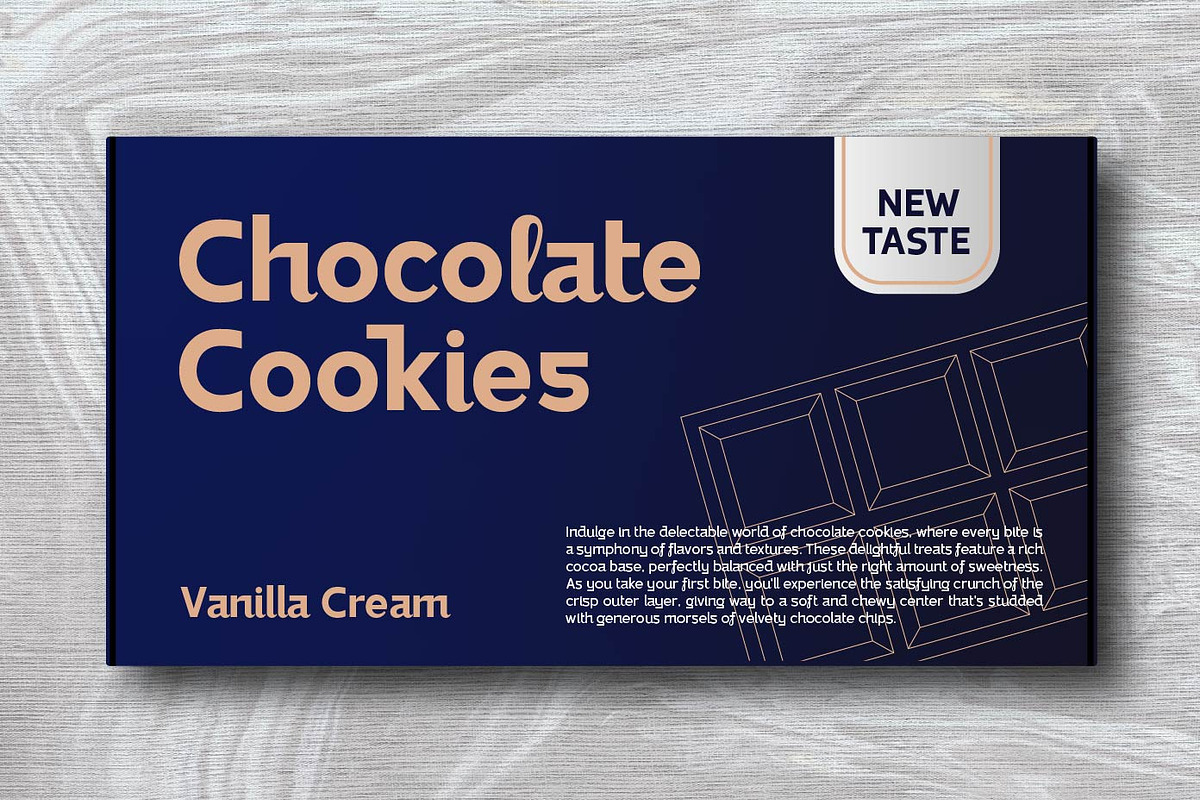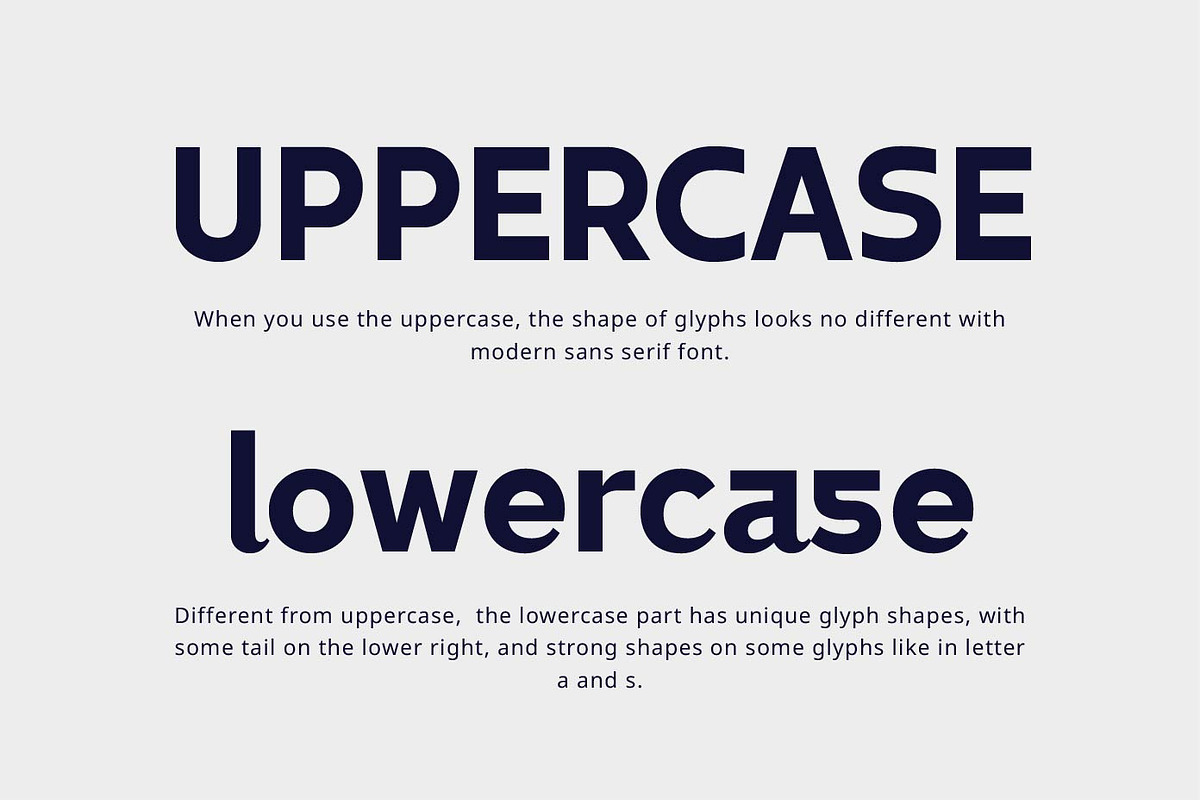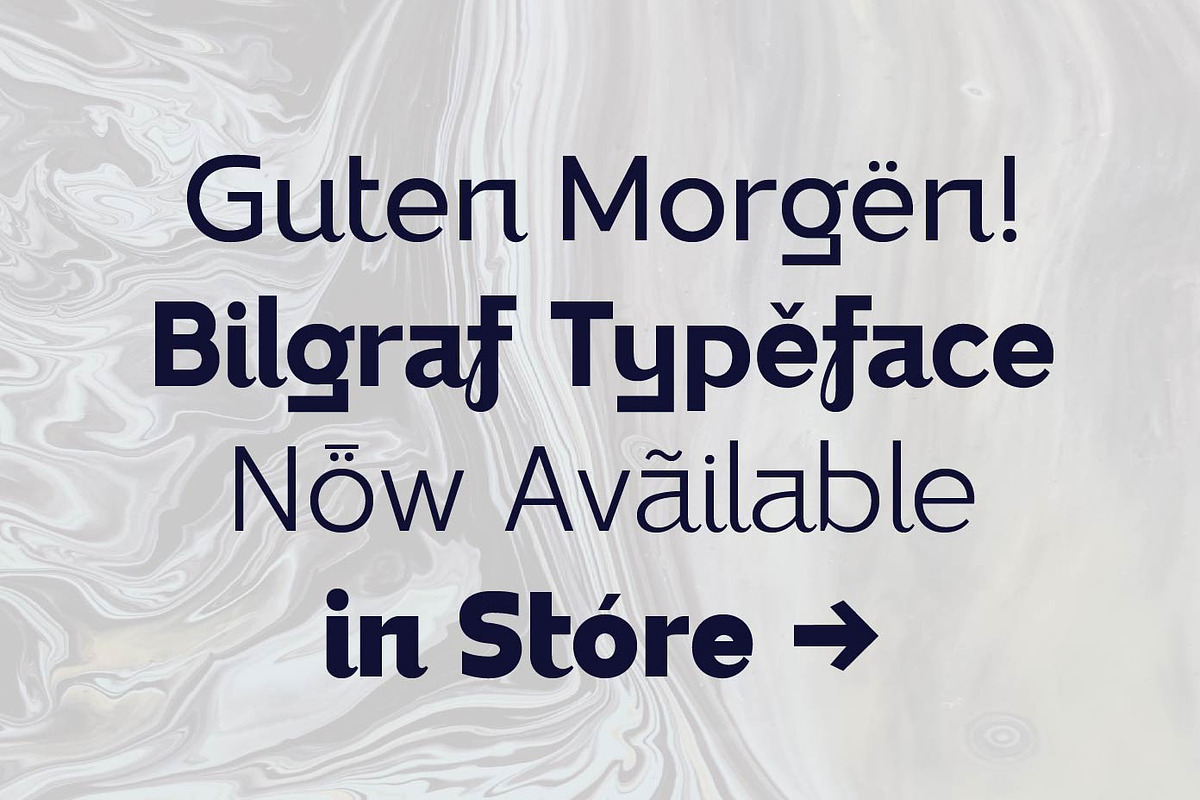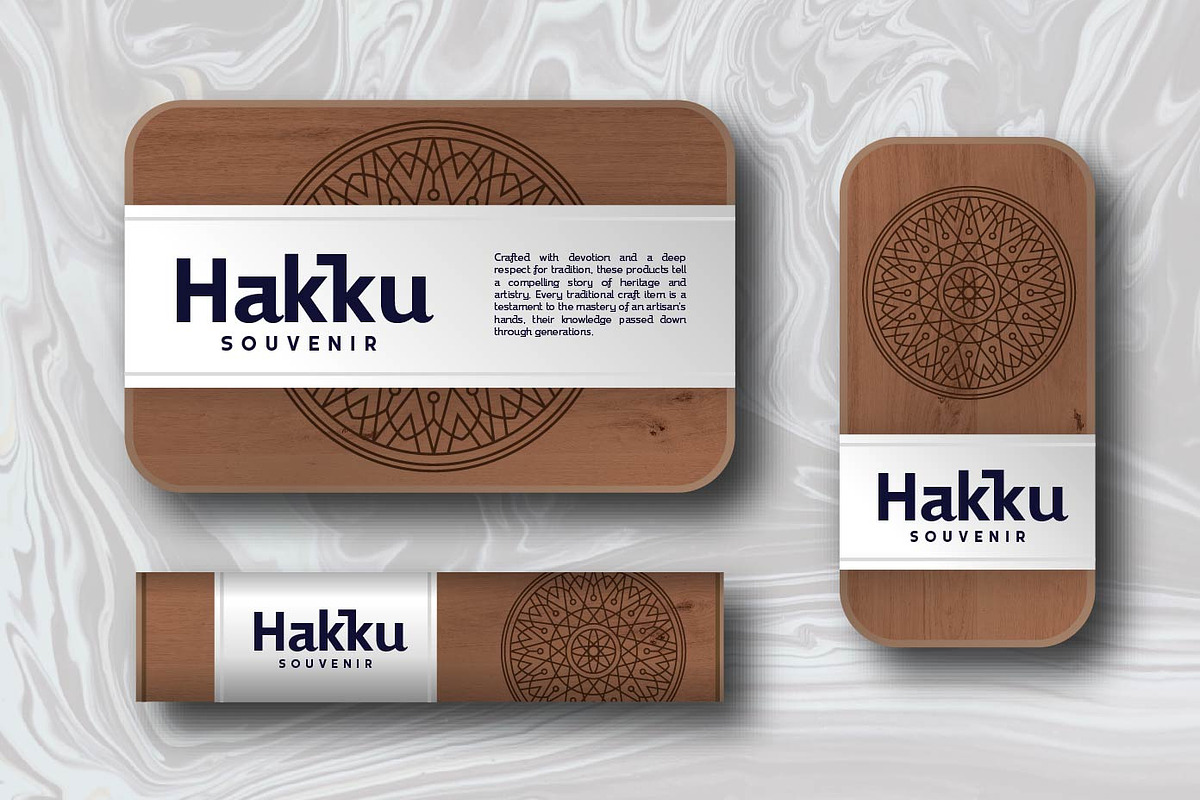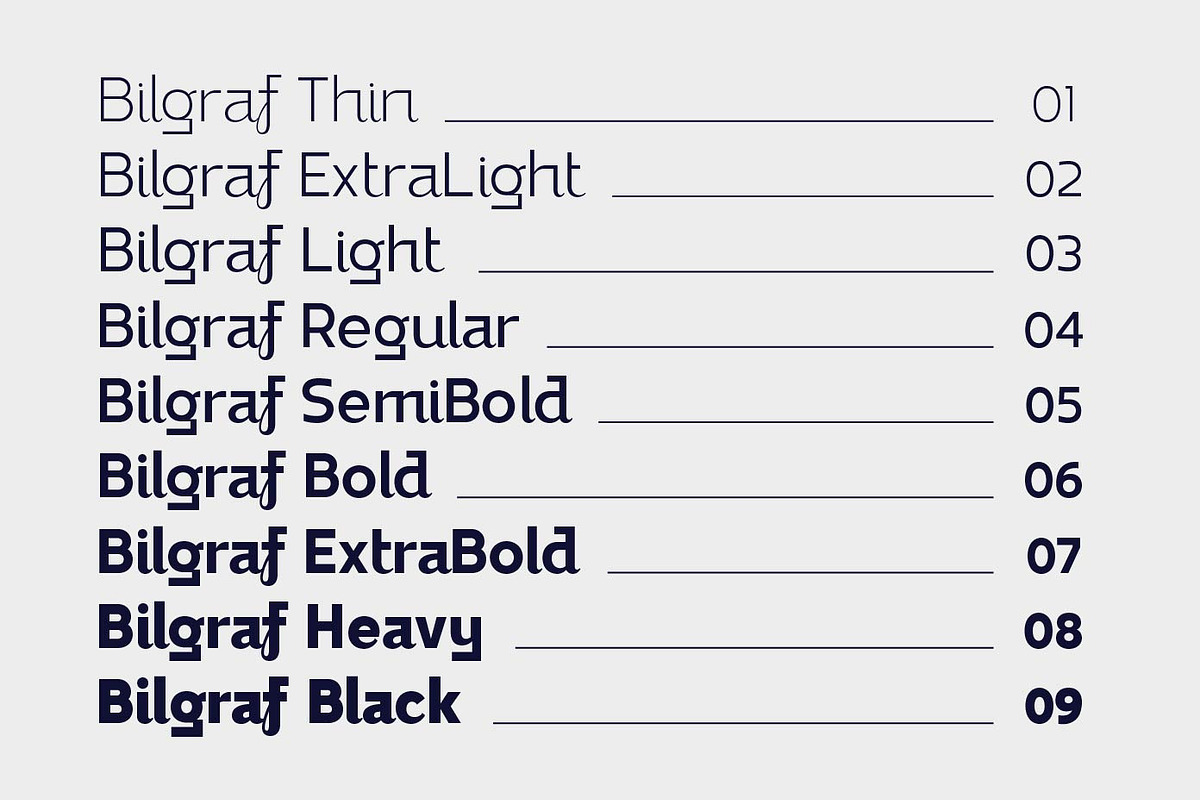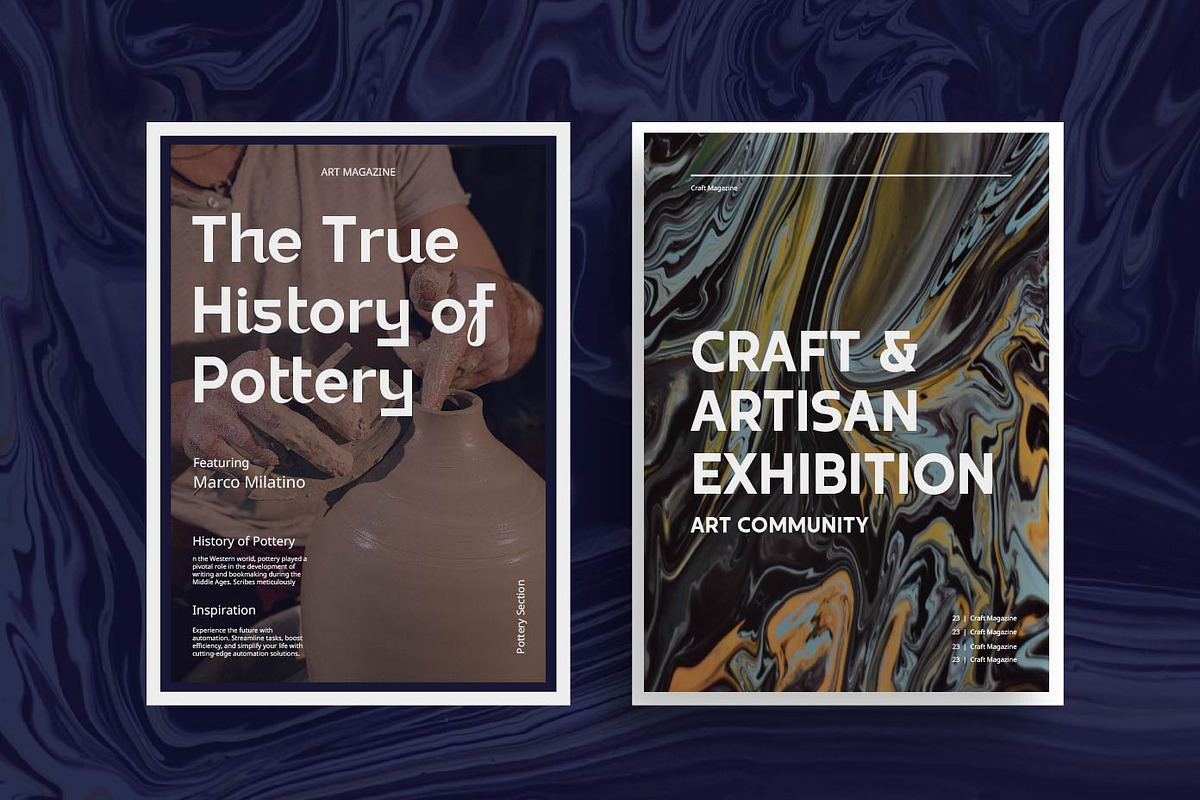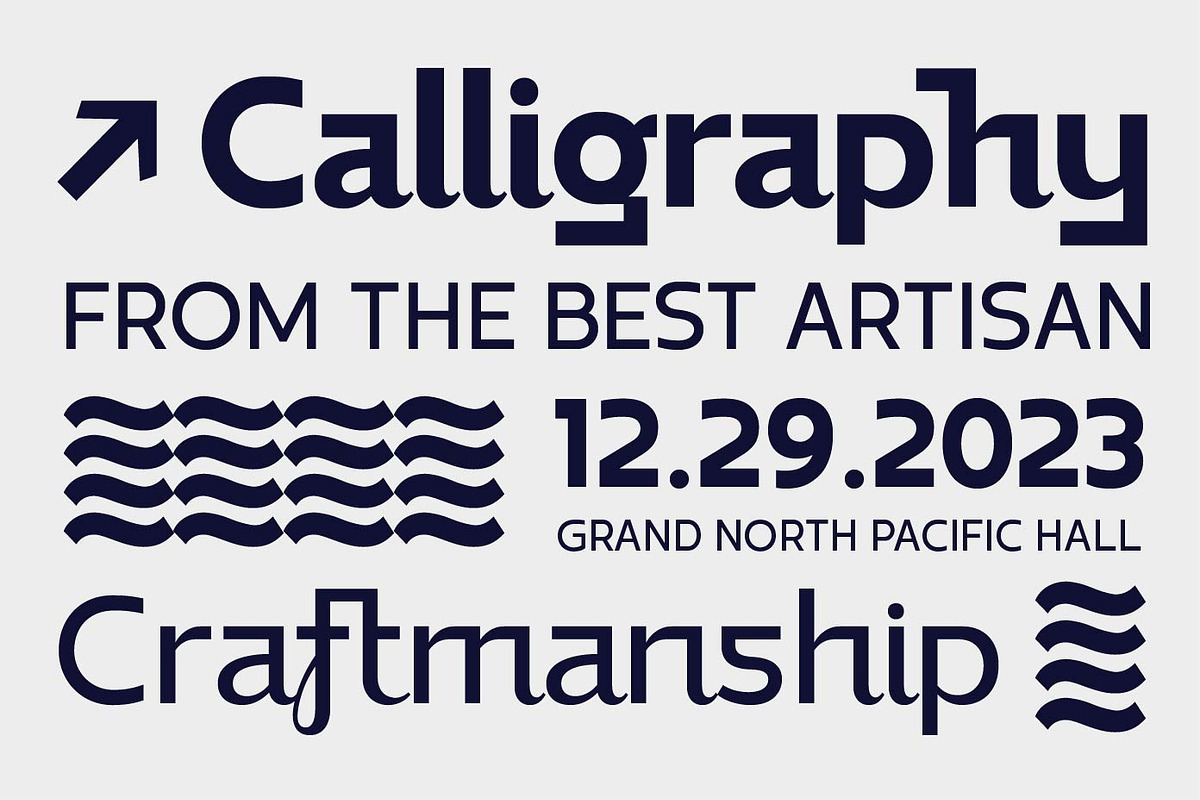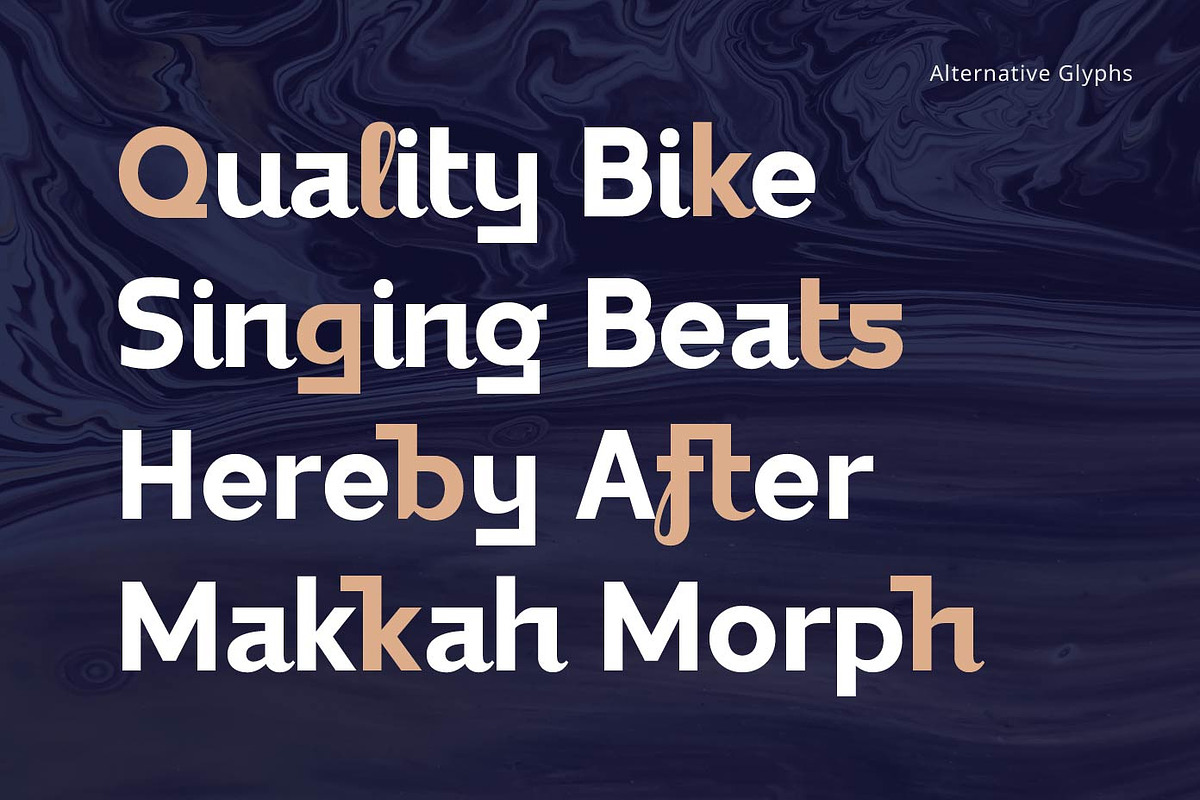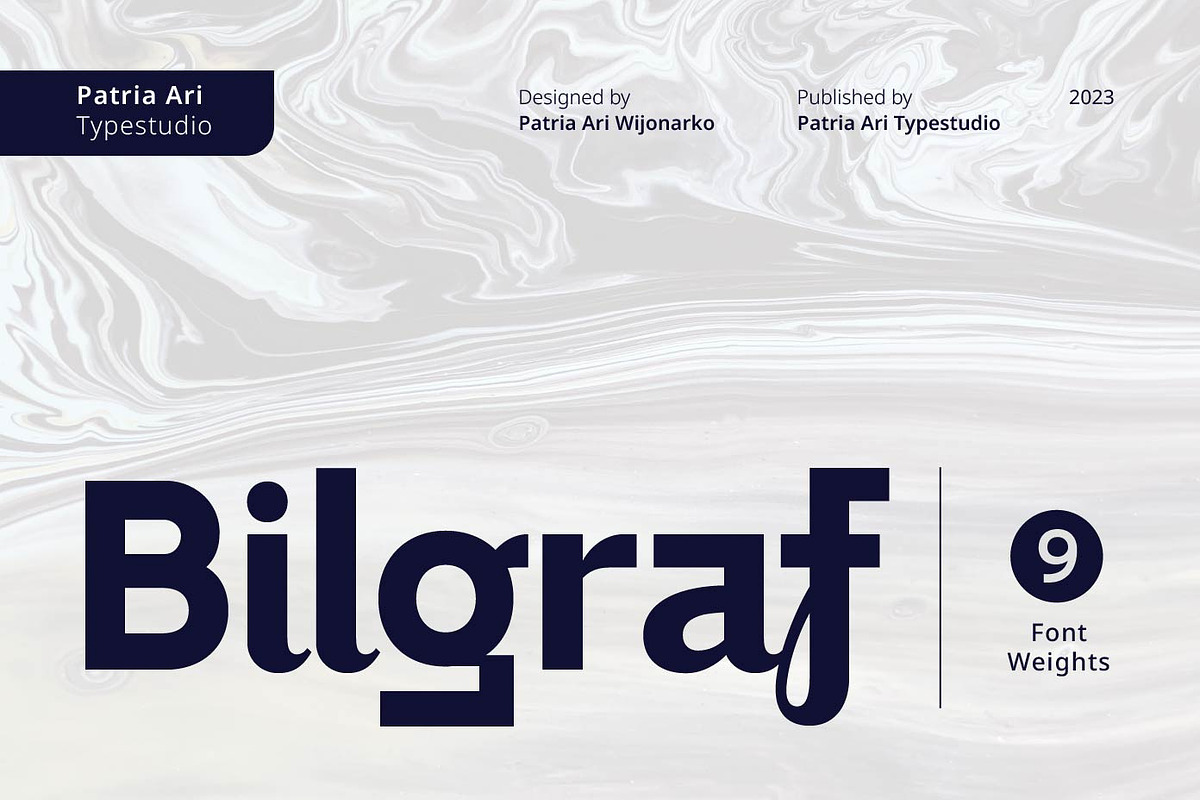
Bilgraf Cursive Craft Sans
Introducing Bilgraf, a cursive craft sans serif combination font. This typeface opens up a world of creative possibilities, offering a harmonious balance between the traditional and the contemporary.
With Bilgraf, you get the best of both worlds – the timeless charm of cursive calligraphy and the contemporary appeal of a sans-serif display font.
Whether you’re an experienced designer or just starting your creative journey, Bilgraf is the tool you need to add a touch of elegance and modernity to your projects.